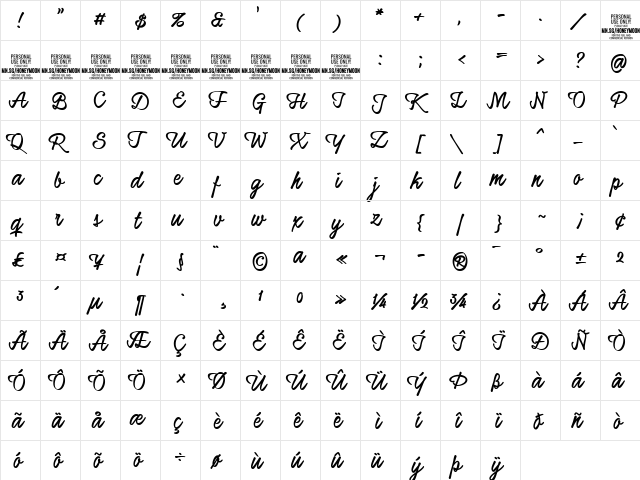
Honeymoon Up Bold PERSONAL USE Regular
Design Context for Honeymoon Up Bold PERSONAL USE Typeface
Honeymoon Up Bold PERSONAL USE is a composed and adaptable typeface that performs quietly and consistently across a wide range of design contexts. The heavy weight commands attention and anchors typographic hierarchies.